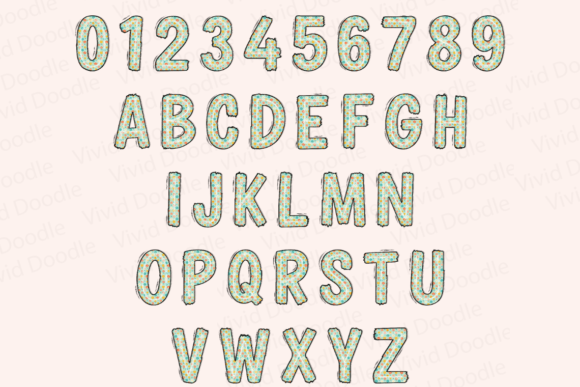
Boho Fall Font
Embrace the beauty of the autumn season with the “Boho Fall Autumn” font. This delightful typeface blends playful doodles with a bohemian touch, making it perfect for adding a cozy, seasonal vibe to your projects. Whether you’re crafting holiday decorations, working on school projects, or designing creative art, this font will bring warmth and charm to your work.